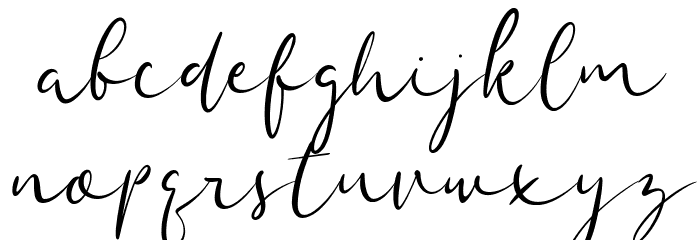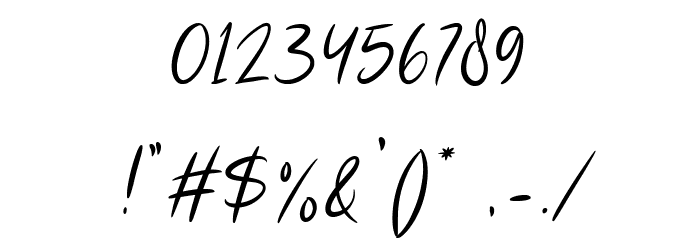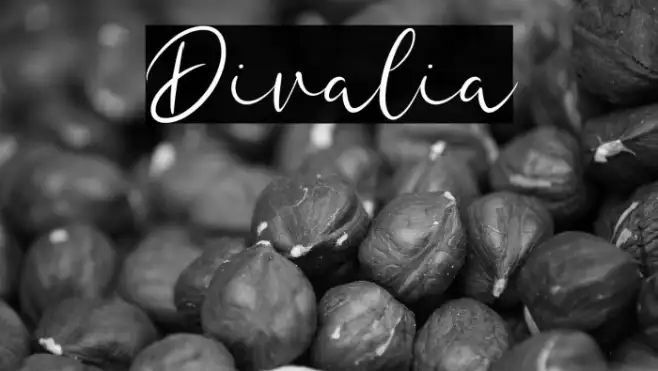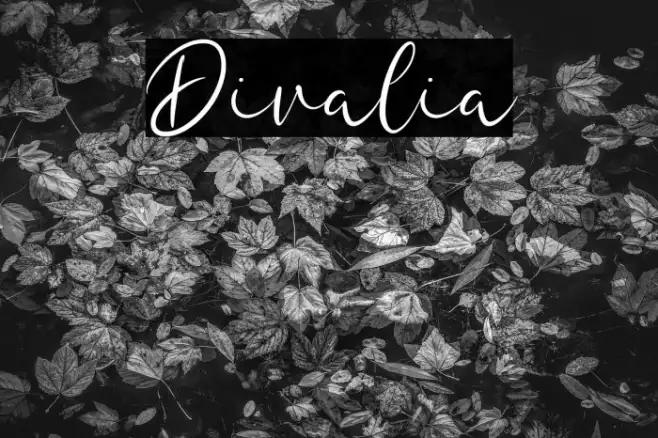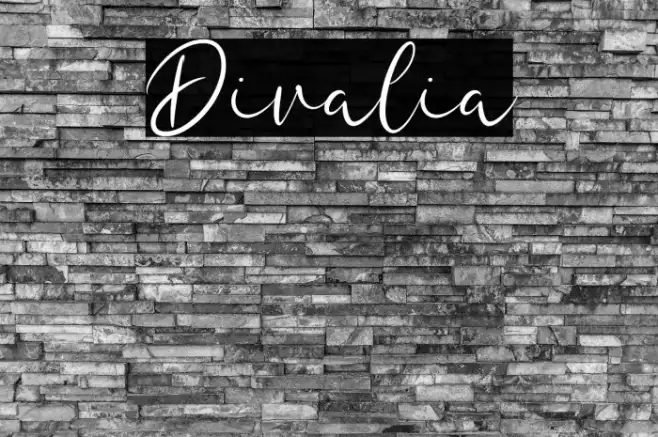
Divalia Font
This font exudes a lively and elegant script style, characterized by its fluid, cursive strokes and a sense of movement. The uppercase letters are bold and expressive, with sweeping curves and a dynamic flair. The lowercase letters maintain a consistent flow, enhancing readability while retaining a sophisticated appearance. The numerals are designed to match the script's fluidity, offering a harmonious blend with the alphabet. Special characters are crafted with the same attention to detail, ensuring they integrate seamlessly into the overall design. This font is perfect for projects that require a personal touch, such as invitations, greeting cards, or branding materials.
A lively and elegant script font with fluid, cursive strokes.
- Proposed Projects: Ideal for invitations, greeting cards, branding, and personal projects.
- Overall Style: Elegant, Lively
- Use Case: Headlines, Logos, Invitations